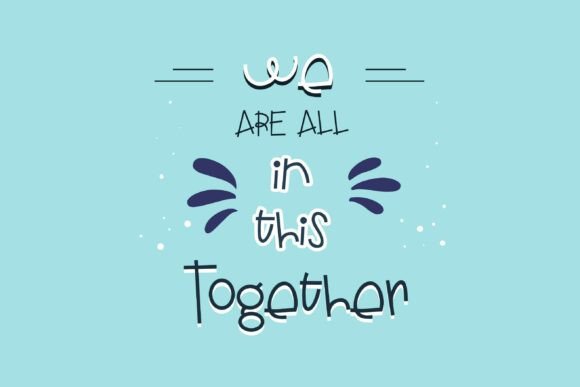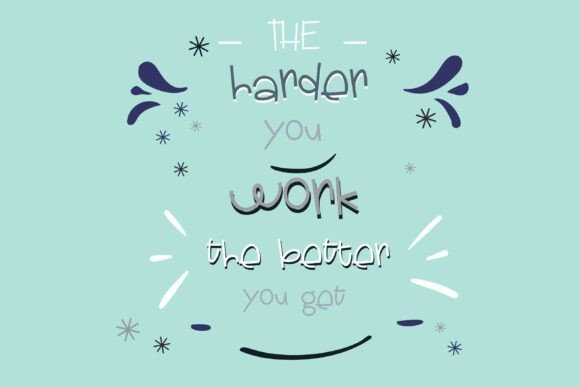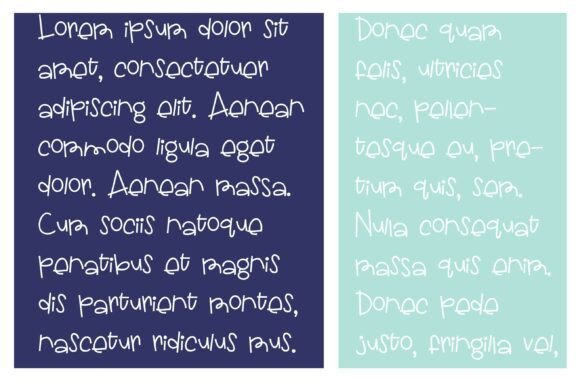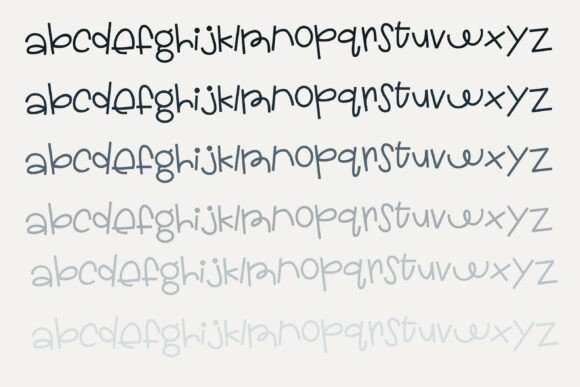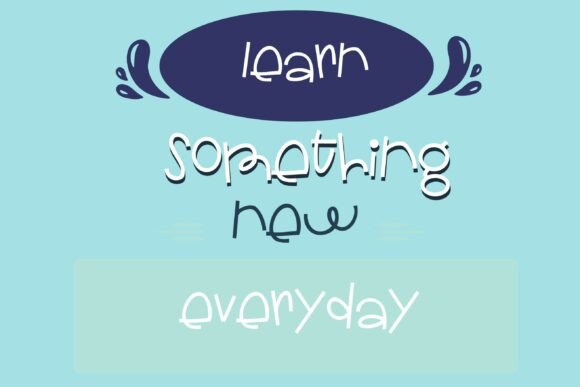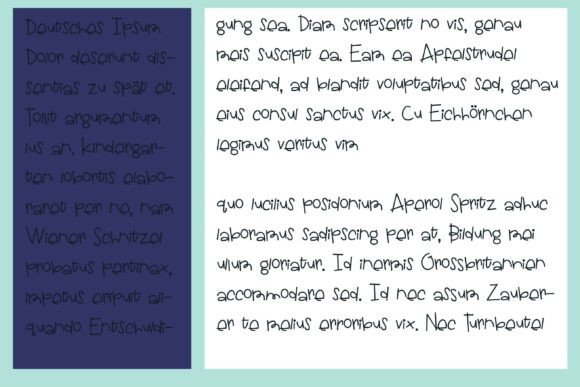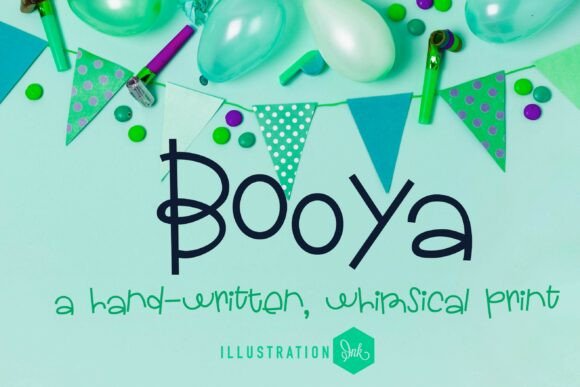
Unleash Your Creativity with Booya Font: A Spirited Display Typeface
I still remember the design moment that led me to discover Booya Font. I was working on a project for a children’s boutique, and I needed a font that would capture the playful and whimsical spirit of the brand. I had tried several fonts, but none of them seemed to fit the bill. That was when I stumbled upon Booya, and it was love at first sight! ✨
Booya Font is a monolinear, hand-penned typeface that exudes a celebratory and spontaneous soul. Its quirky loops, exaggerated stems, and rhythmic, off-beat bounce make it feel like a party on the page. In this article, we’ll dive into the world of Booya Font, exploring its features, uses, and alternatives.
• ✨ Unique and eye-catching design that’s perfect for making a statement
• ✅ Highly legible, even at smaller sizes
• 🎉 Extensive OpenType features, including glyphs and stylistic alternates
• 👍 Great for creating social media headers, greeting cards, and children’s signage
The Not-So-Good Stuff
• 🤔 Some users may find the font a bit too playful or childish for certain projects
• ⚠️ Limited use for body text or long-form writing due to its display nature
The Backstory Behind Booya Font
Booya Font was designed with the intention of capturing the spirit of spontaneity and celebration. The designer wanted to create a font that would feel like a party on the page, with quirky loops and exaggerated stems that would add a touch of whimsy to any design. The result is a font that’s perfect for independent event planning branding, whimsical greeting cards, playful children’s boutique signage, and high-impact social media headers.
Q: What is Booya Font best used for?
A: Booya Font is best used for display purposes, such as headlines, titles, and short-form text. It’s perfect for creating social media headers, greeting cards, and children’s signage.
Q: Is Booya Font suitable for body text?
A: No, Booya Font is not suitable for body text due to its display nature. It’s best used for short-form text where you want to make a statement.
Q: Is Booya Font easy to read?
A: Yes, Booya Font is highly legible, even at smaller sizes. However, it’s best used for display purposes where you want to make a statement.